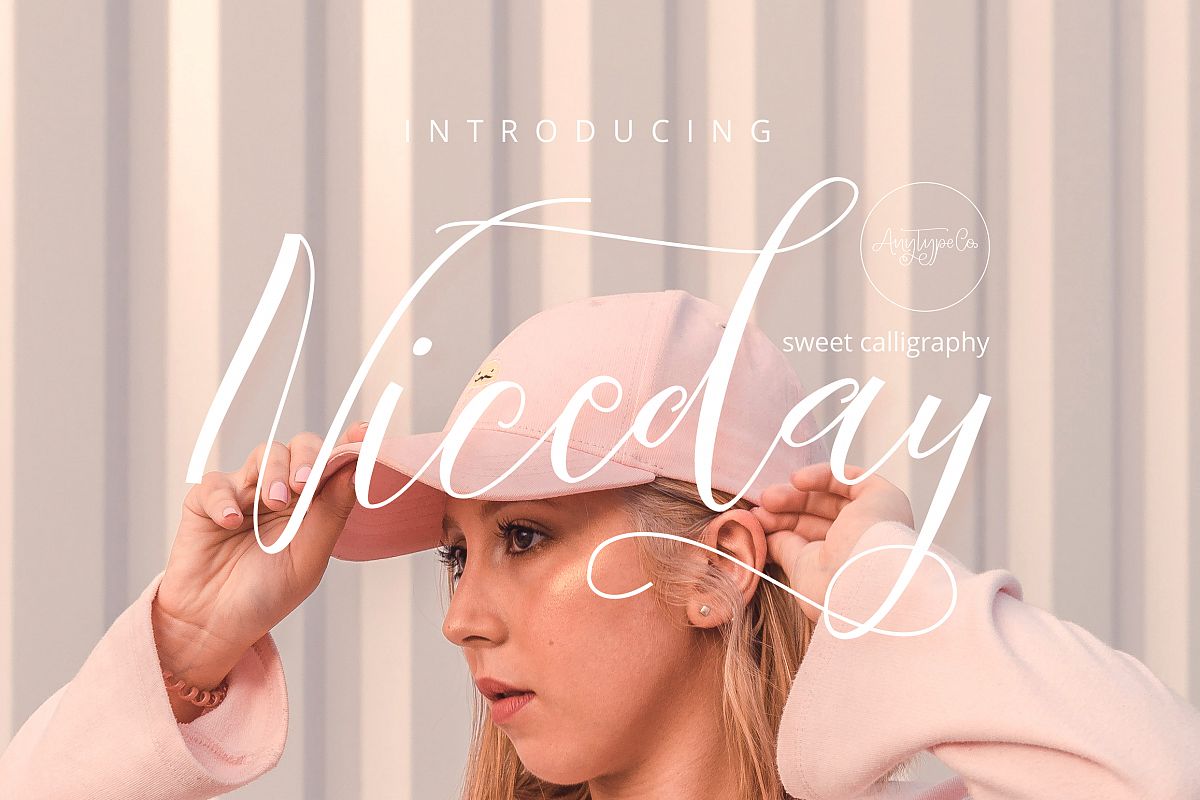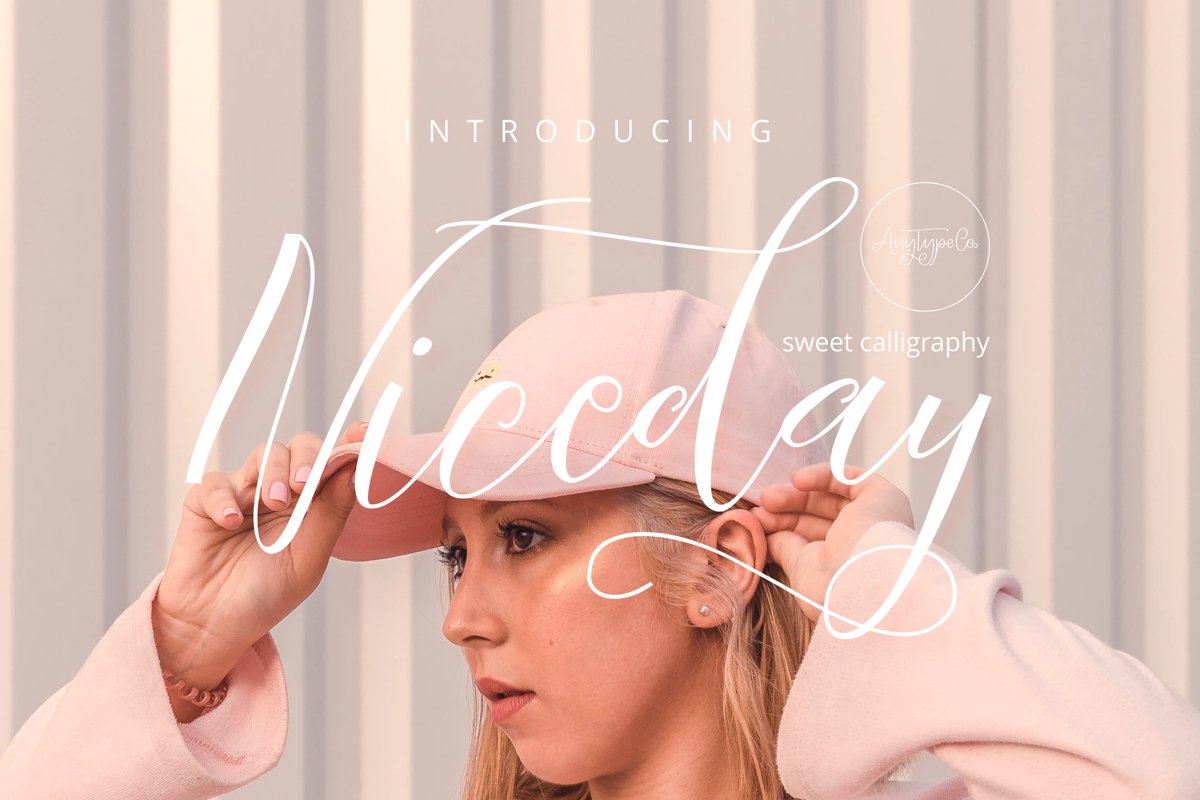
Niceday Script Font
Niceday
Niceday is a feminine font with a modern script style, this font will be perfect for many different projects: photography, watermarks, quotes, blog headers, posters, weddings, branding, logos, fashion, clothing, letters, invitations, stationery, etc. .
- Uppercase & lowercase
- Number & punctuation symbols
- Stylistic Sets
- Stylistic Swash
- International characters (Multilingual)